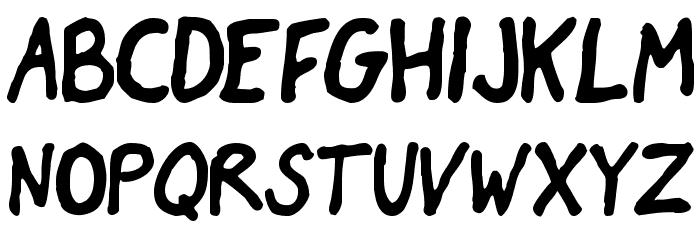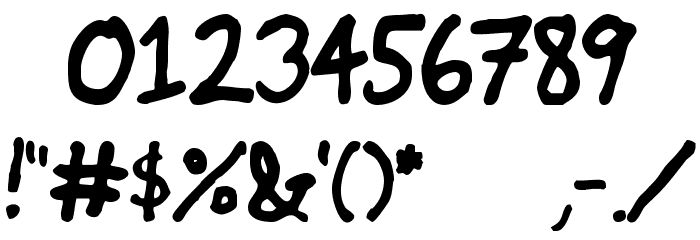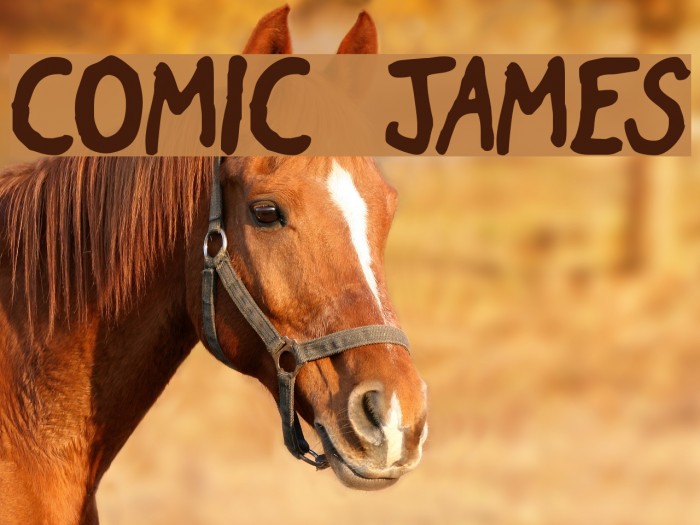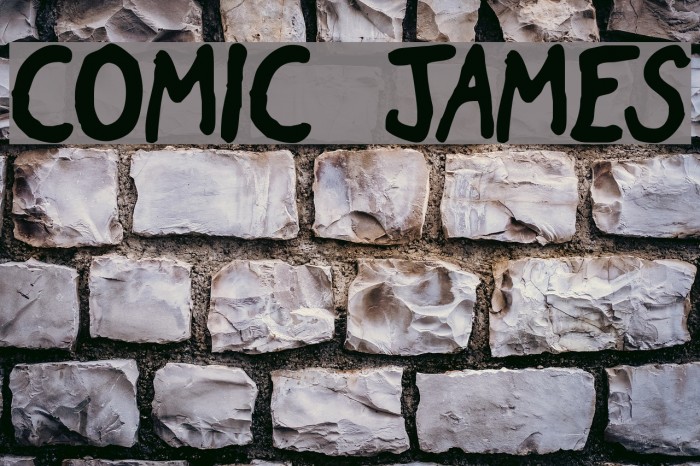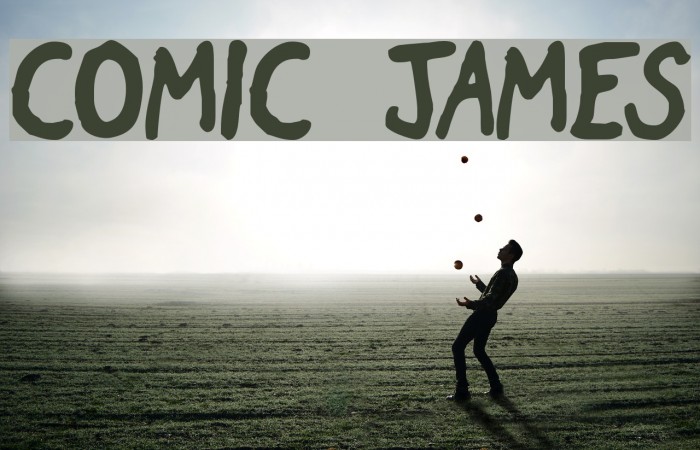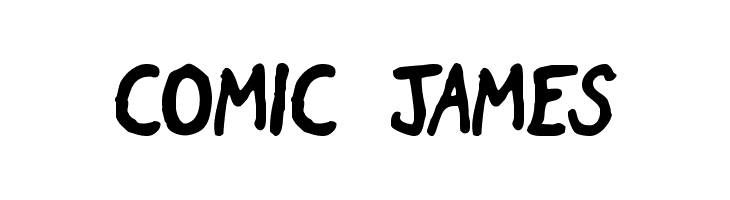
Comic James Font
This playful and informal font features a handwritten style with bold, rounded strokes that give it a friendly and approachable appearance. The letters are slightly irregular, adding to the casual and whimsical feel. The uppercase and lowercase characters maintain a consistent style, with a slight slant that suggests movement and energy. The numerals and special characters are designed to match the overall aesthetic, ensuring a cohesive look across all text. This font is ideal for projects that require a fun and lighthearted touch, such as children's books, comic strips, or playful branding.
A playful, handwritten font with bold, rounded strokes and a casual, whimsical style.
- Proposed Projects: Children's books, comic strips, playful branding, greeting cards, and casual invitations.
- Category: Handwritten
- Overall Style: Playful, Casual
- Use Case: Headlines, Logos, Informal Text